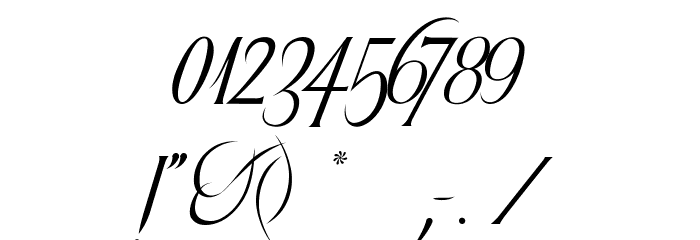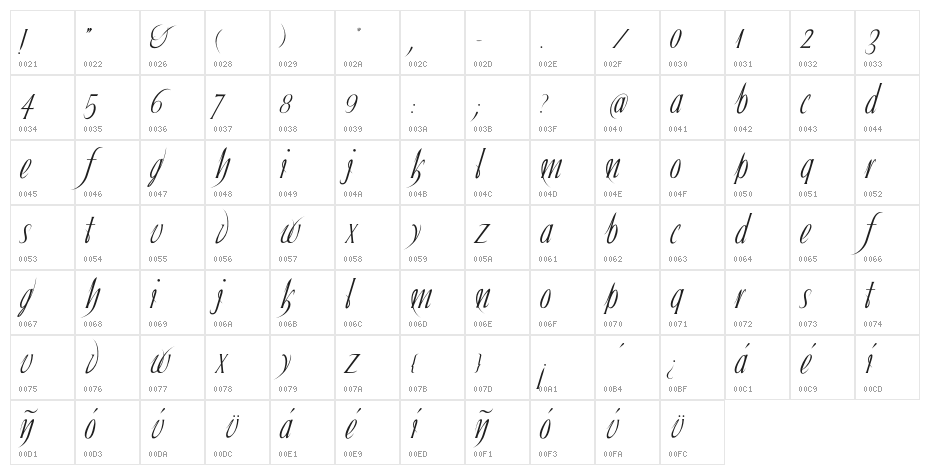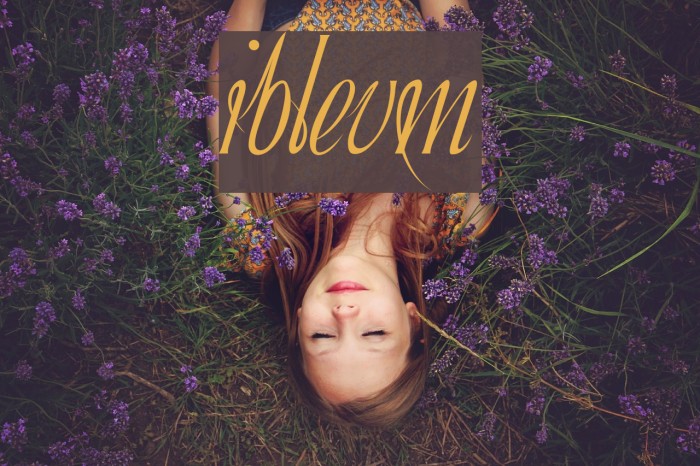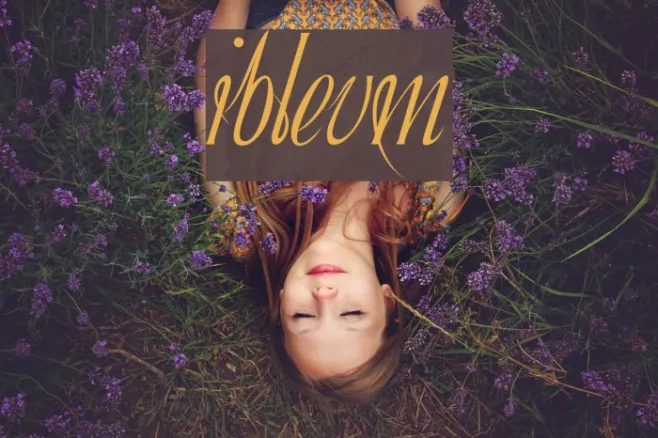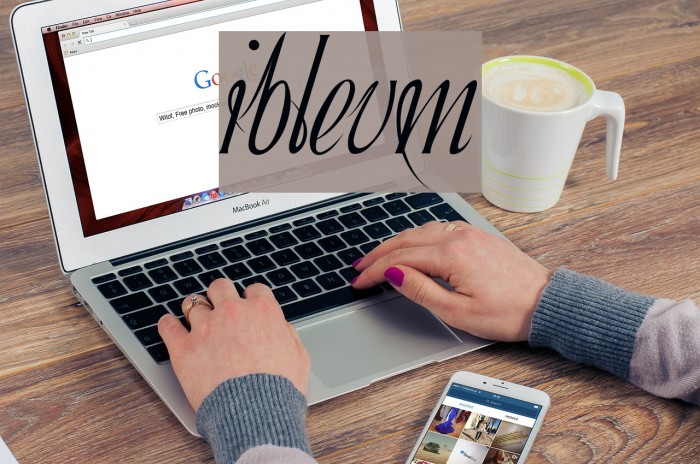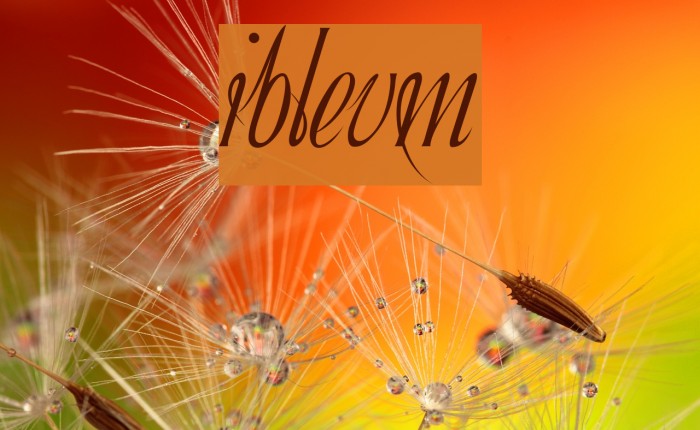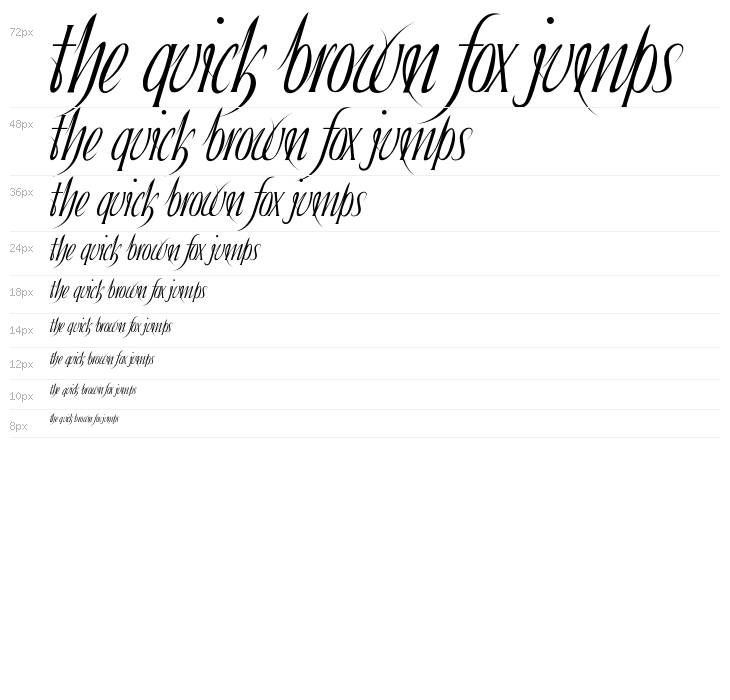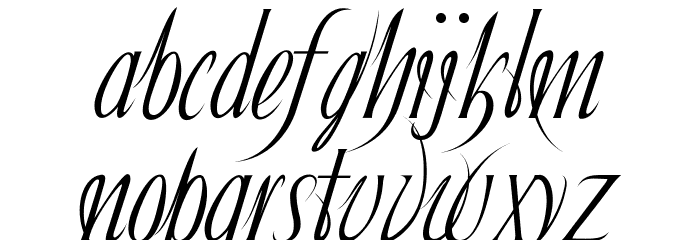
Ibleum Font
Ibleum Description
This font exhibits a highly decorative and elegant style, characterized by its flowing, cursive script. The letters are elongated with exaggerated ascenders and descenders, giving it a dramatic flair. The strokes are thin and delicate, with a high contrast between thick and thin lines, adding to its sophisticated appearance. The font maintains a consistent slant, enhancing its fluidity and grace. The uppercase letters are particularly ornate, with intricate swashes and flourishes that make them stand out. The lowercase letters are more restrained but still maintain the overall decorative theme. This font is ideal for creating a sense of luxury and elegance in design projects.
| Use Case | Logos, Invitations, Headlines |
| Proposed Projects | Ideal for wedding invitations, luxury branding, high-end product packaging, and elegant event signage. |